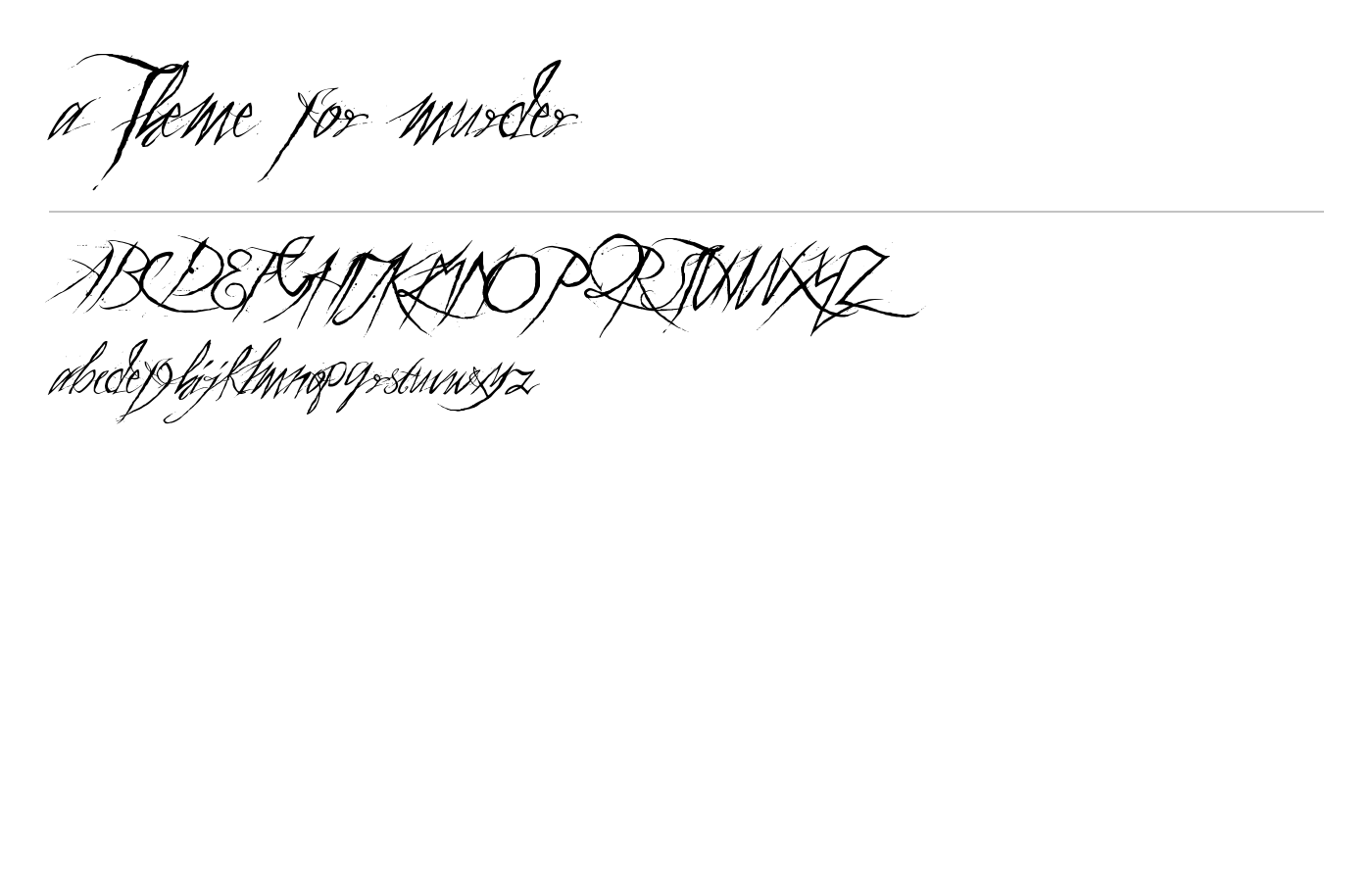
A Theme for Murder is an intense and expressive handwritten script font with jagged, sharp strokes that create a dramatic, almost chaotic appearance. Its irregular, spiky letterforms evoke a dark, suspenseful mood, making it ideal for thriller, horror, or mystery-themed designs that seek a sense of urgency and eerie emotion. This font works best in logos, posters, or book covers where a striking, unsettling atmosphere is desired.
a Theme for murder Font